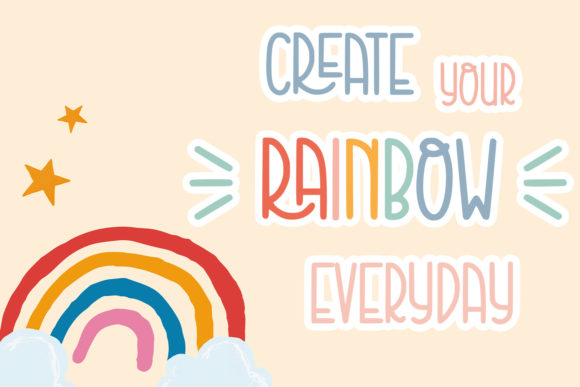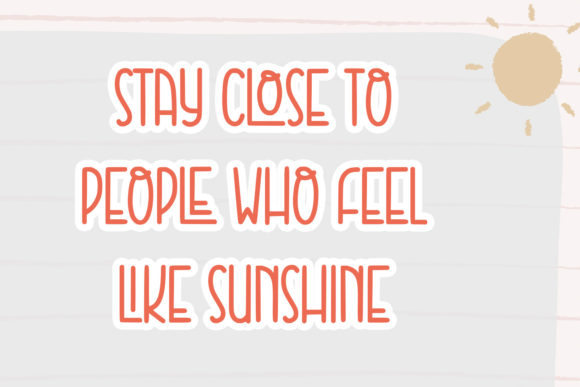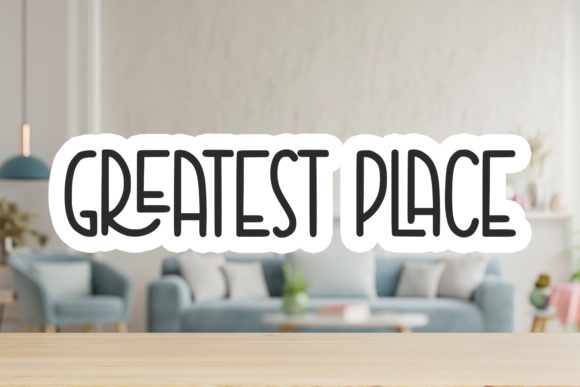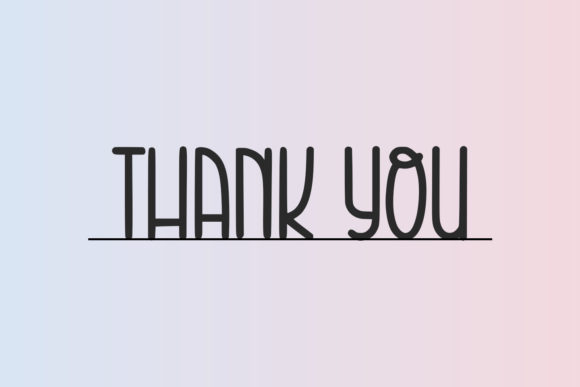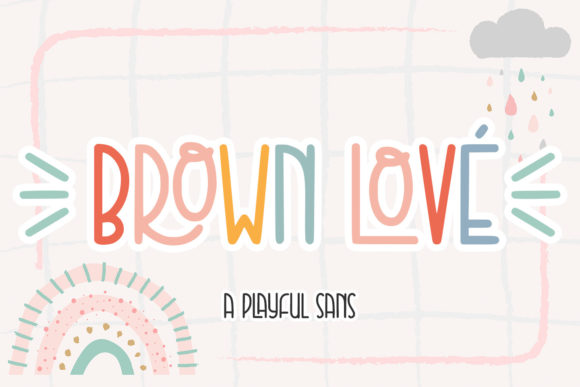
Brown Love Font: The Perfect Playful and Cute Handwritten Font for Your Craft Projects
Are you a designer or crafter looking for a unique and eye-catching font to elevate your creative projects? Look no further than the Brown Love Font! This playful and cute handwritten font is perfect for a variety of applications, from t-shirt designs and quotes to mugs, tote bag designs, cards, banners, social media, and more.
What Makes Brown Love Font So Special?
Brown Love Font is a one-of-a-kind handwritten font that exudes a sense of playfulness and charm. Its unique and quirky style makes it perfect for designers and crafters who want to add a personal touch to their projects. Whether you’re creating a fun and casual design or a more sophisticated and elegant one, Brown Love Font is sure to impress.
Uses for Brown Love Font
The versatility of Brown Love Font is one of its best features. Here are just a few ideas for how you can use this amazing font in your craft projects:
• T-shirt designs: Create fun and stylish t-shirt designs that are perfect for casual wear or as a unique gift.
• Quotes and posters: Use Brown Love Font to create inspiring and motivational quotes that are sure to grab attention.
• Mugs and water bottles: Add a personal touch to your ceramic and glassware designs with this adorable font.
• Tote bag designs: Create reusable tote bags that are both functional and fashionable.
• Cards and invitations: Use Brown Love Font to create one-of-a-kind cards and invitations for special occasions.
• Banners and signs: Create eye-catching banners and signs that are perfect for parties, events, or business promotions.
• Social media graphics: Use Brown Love Font to create engaging social media graphics that will help you stand out online.
Why Choose Brown Love Font?
So why should you choose Brown Love Font for your craft projects? Here are just a few reasons:
• Unique and playful style: Brown Love Font has a one-of-a-kind style that will set your designs apart from the rest.
• Easy to read: Despite its playful style, Brown Love Font is easy to read and understand, making it perfect for quotes, posters, and other text-based designs.
• Versatile: Brown Love Font can be used in a wide range of craft projects, from t-shirt designs to social media graphics.
• High-quality: Brown Love Font is a high-quality font that is designed to produce crisp and clear results, even at small sizes.
Tips for Using Brown Love Font
Here are a few tips for getting the most out of Brown Love Font:
• Experiment with different colors: Brown Love Font looks great in a variety of colors, so don’t be afraid to experiment and find the perfect hue for your design.
• Pair with other fonts: Brown Love Font pairs well with other fonts, so consider combining it with a bold or serif font to add contrast and interest to your design.
• Use it sparingly: While Brown Love Font is a beautiful font, it can be overwhelming if used too much. Use it sparingly to add a touch of personality to your design.
In conclusion, Brown Love Font is a playful and cute handwritten font that is perfect for designers and crafters who want to add a personal touch to their craft projects. With its unique and quirky style, versatility, and high-quality design, Brown Love Font is sure to become a favorite in your font collection. So why wait? Download Brown Love Font today and start creating amazing craft projects that will stand out from the crowd!